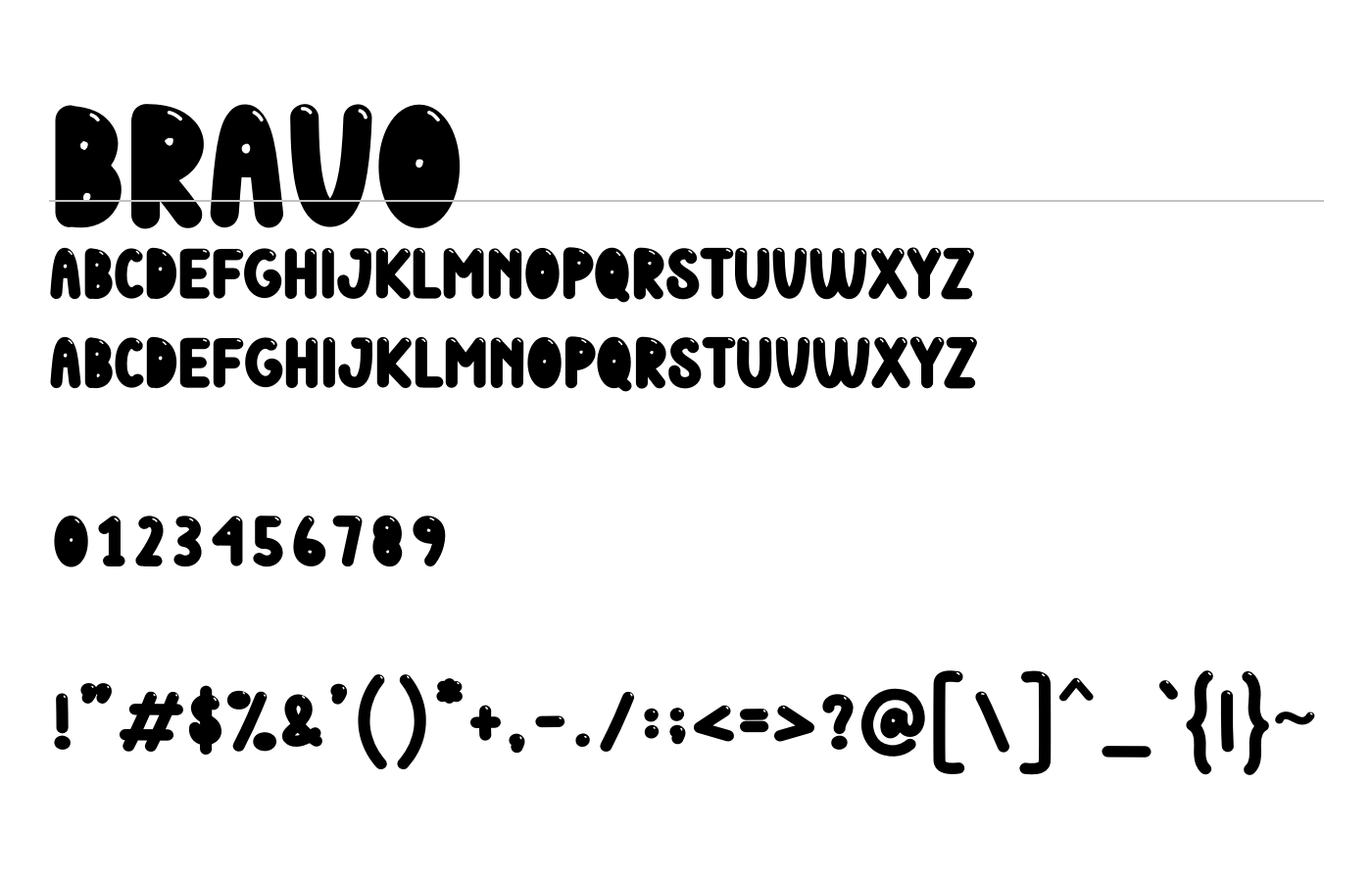
Bravo Font is a playful, bold sans serif typeface with rounded, chunky letterforms that give it a friendly and approachable feel. Its heavy weight and uniform stroke width make it ideal for eye-catching headlines, logos, and creative projects that seek a fun and energetic vibe. This font works especially well in informal designs, children’s materials, and branding that aims to convey warmth and cheerfulness.
Bravo Font
About Bravo Font